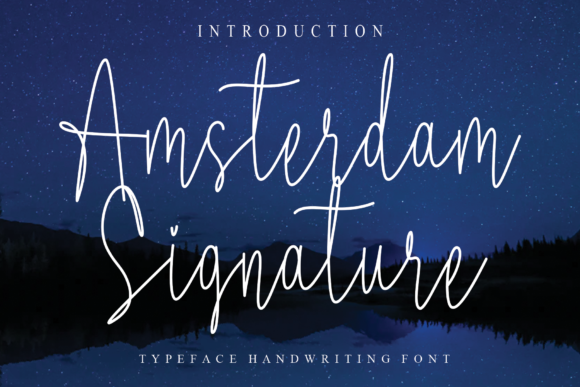
Discover the Timeless Charm of the Amsterdam Signature Font
Have you ever stumbled upon a font that perfectly captures the essence of a moment? For designers, finding that perfect font can be the difference between a good design and a great one. I still remember the thrill of discovering the Amsterdam Signature Font, a unique and elegant handwritten font that instantly elevates any design.
With its clean, thin, and smooth vibe, the Amsterdam Signature Font is a game-changer for designers looking to add a touch of sophistication to their work. This versatile font is perfect for anything from branding and advertising to digital design and print materials. Whether you’re a seasoned pro or just starting out, the Amsterdam Signature Font is a valuable addition to any designer’s toolkit.
- Unique Characteristics: The font features a unique blend of modern and classic elements, with distinctive letterforms and subtle flair.
Amsterdam Signature Font Review
I recently had the chance to work with the Amsterdam Signature Font, and I must say it’s a mixed bag. On the one hand, there are some things that work really well.
- ✨ Elegant and sophisticated design: The Amsterdam Signature Font has a beautiful, refined look that’s perfect for luxury brands and high-end projects.
- ✨ Versatile: This font can be used in a variety of contexts, from headlines to body text, and it looks great in both digital and print applications.
- ✨ Unique features: The font includes some interesting details, such as swashes and flourishes, that can add a touch of personality to your designs.
On the other hand, there are some limitations that might make it less suitable for certain projects.
- ⚠️ Limited character set: The Amsterdam Signature Font has a relatively small character set, which might make it difficult to use for longer blocks of text or for languages that require a lot of special characters.
- ⚠️ Not ideal for body text: While the font looks great in headlines, it can be a bit too ornate for body text, which might make it harder to read.
Overall, I think the Amsterdam Signature Font is a great choice for high-end projects where you want to make a statement, but it might not be the best fit for more straightforward or technical projects.
To get the most out of the Amsterdam Signature Font, try combining it with other unique typography elements, such as bold headings and italic text.
Use the font in designs that require a touch of sophistication and elegance, such as invitations, business cards, and brochures.
The Amsterdam Signature Font is perfect for:
Designing elegant invitations and event materials.
Creating sophisticated business cards and letterheads.
Developing high-end brochures and marketing materials.